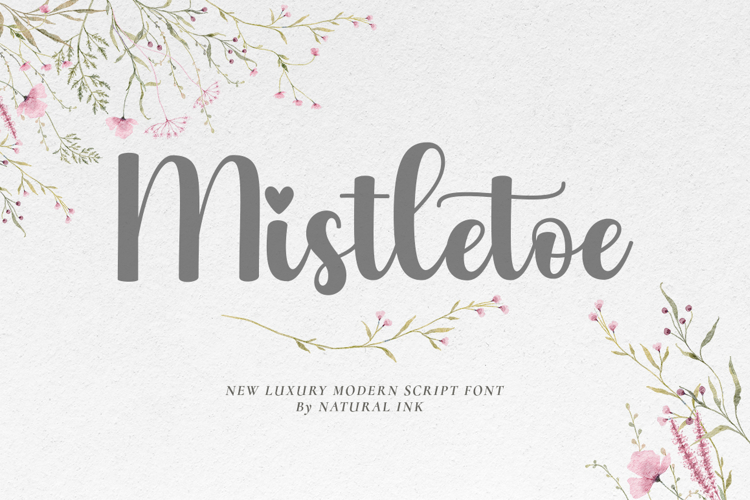
Indulge in the contemporary allure of Mistletoe Script, a sublime fusion of modern calligraphy with a casual yet captivating flair. Enhanced by graceful swashes, this versatile font breathes life into an array of applications. Let Mistletoe Script be the voice of your brand, infusing elegance into logos and product packaging, or letting love bloom on wedding invitations. From turning heads with compelling headlines and signage to leaving an unforgettable impression with labels and signatures, Mistletoe Script shines. It adds a touch of sophistication to book covers and posters, transforming quotes into captivating statements. Experience the endless possibilities with Mistletoe Script, where beauty meets function.